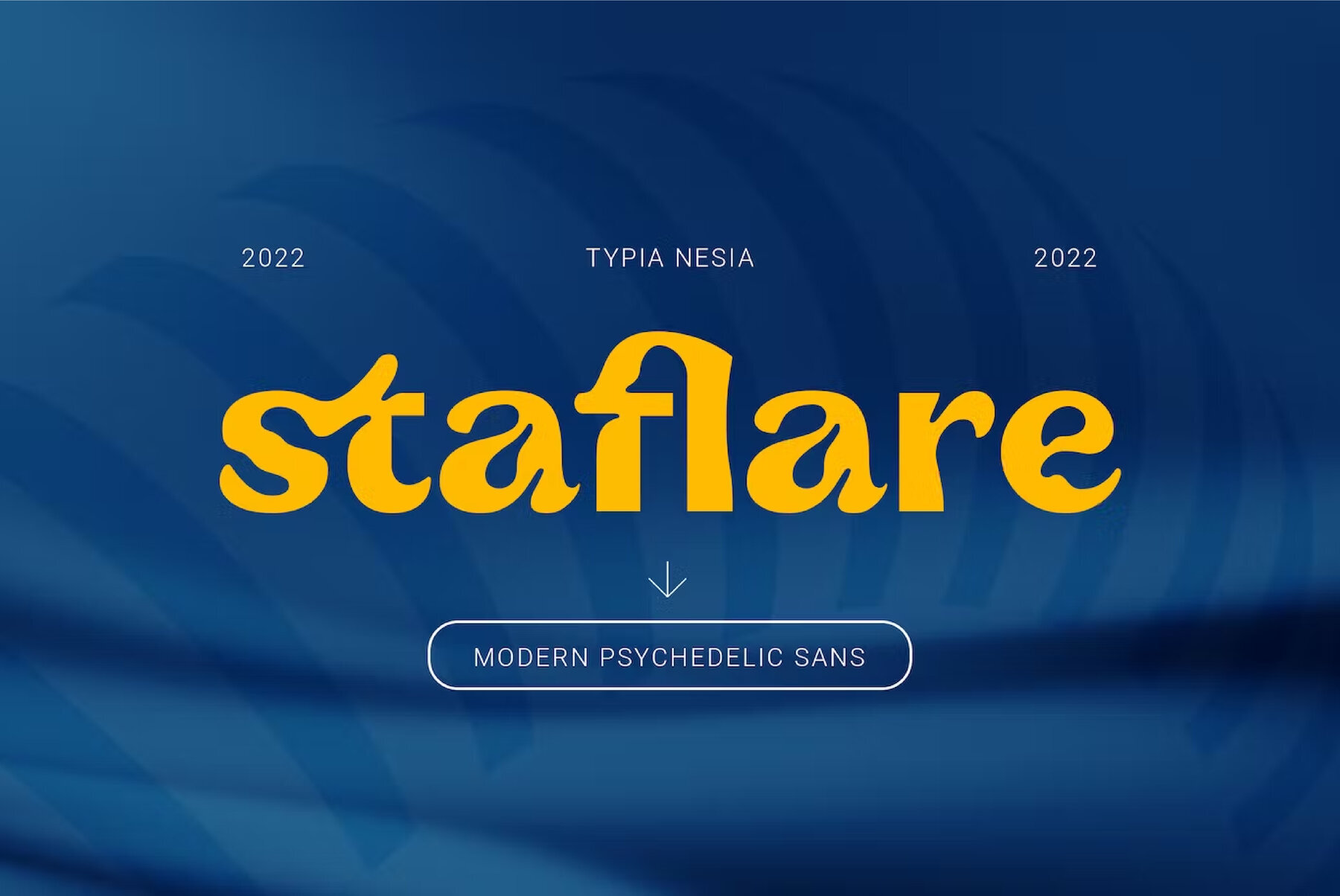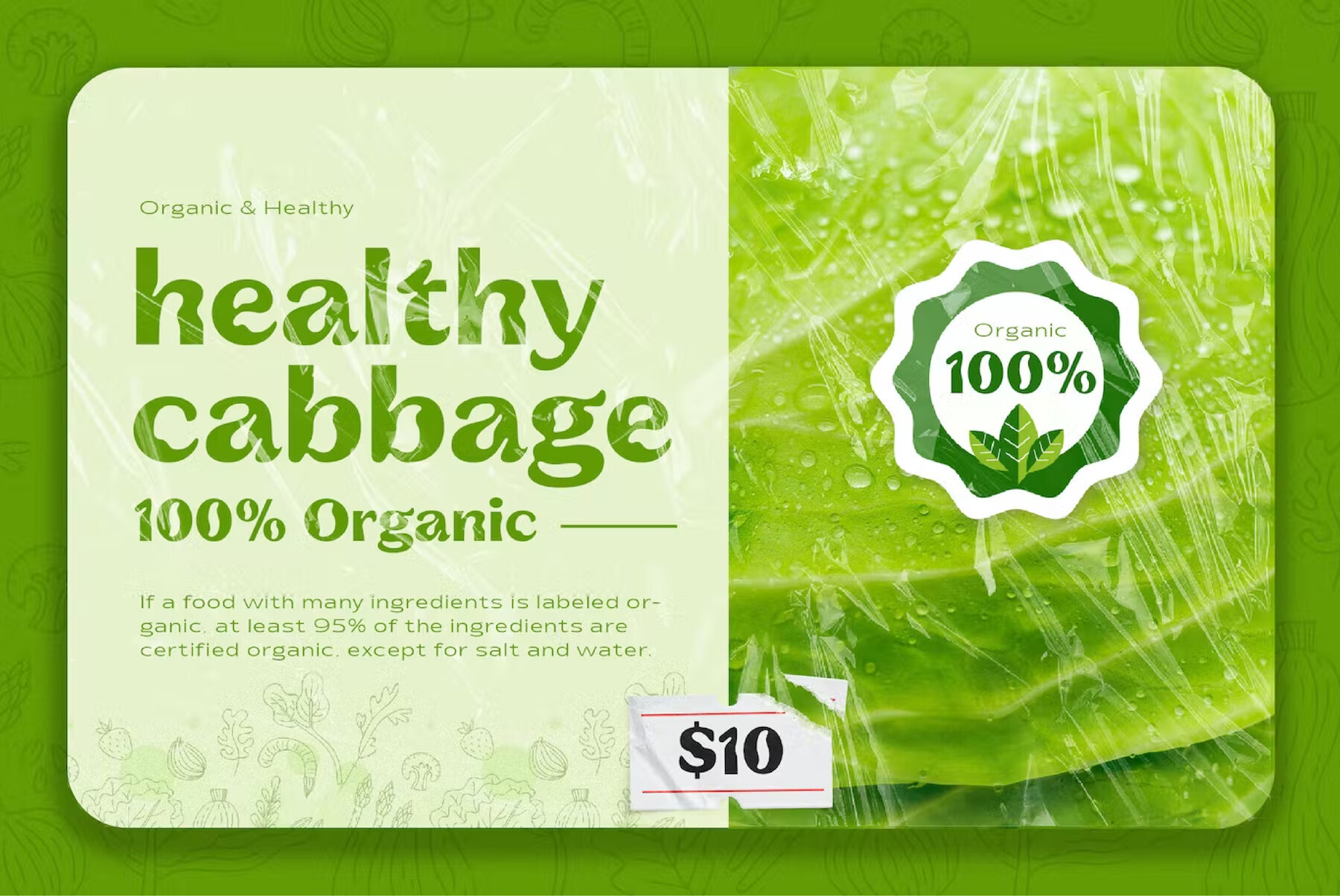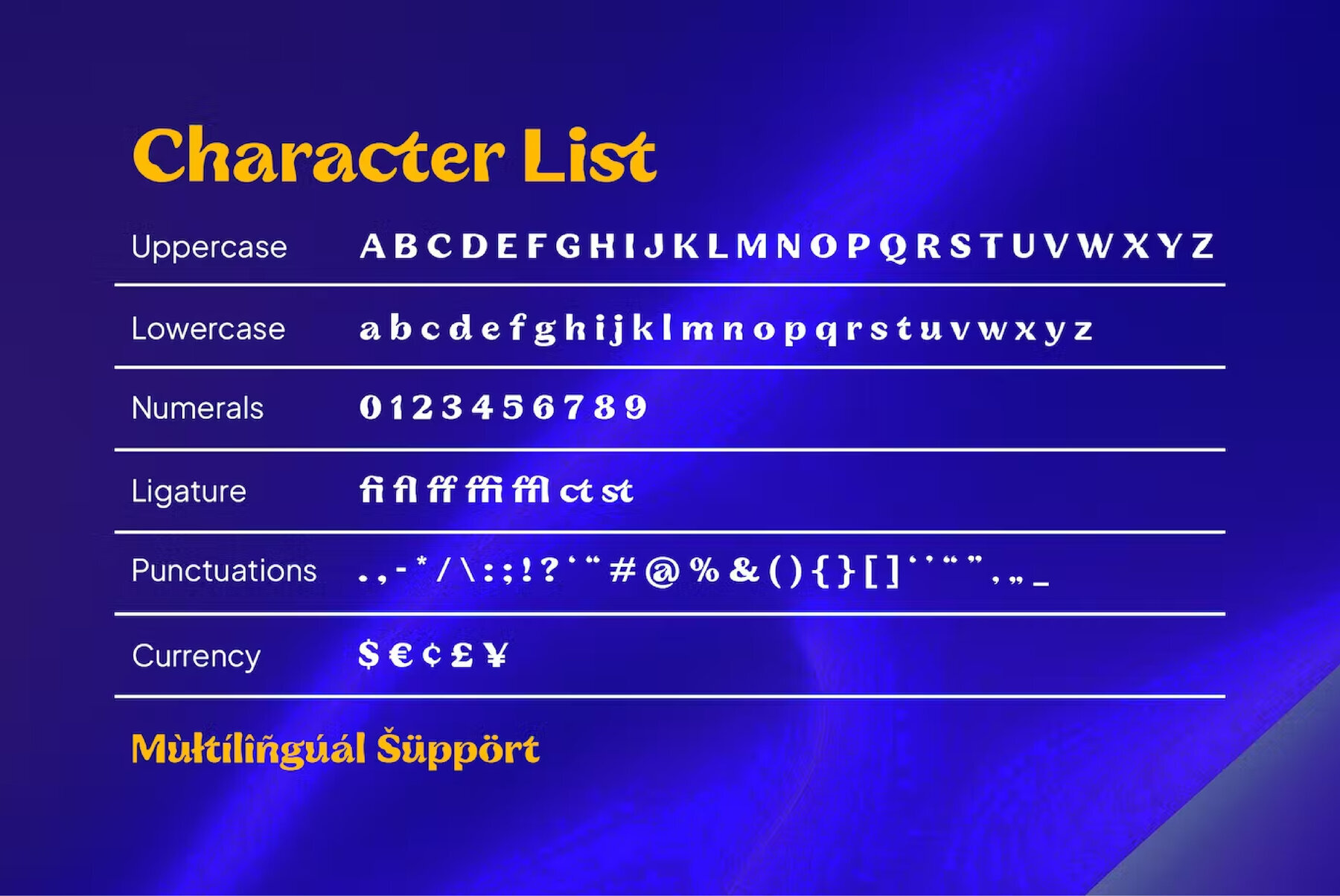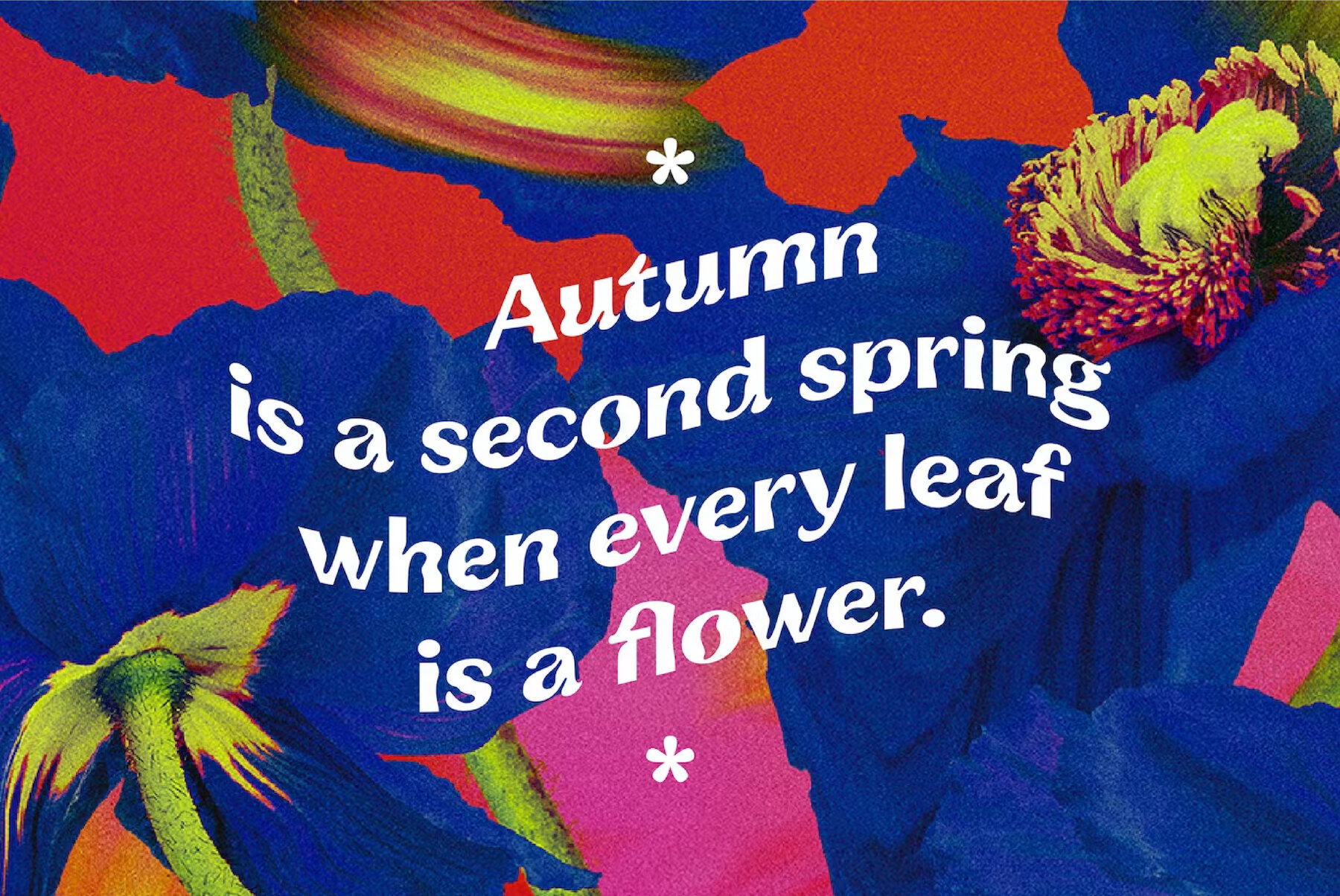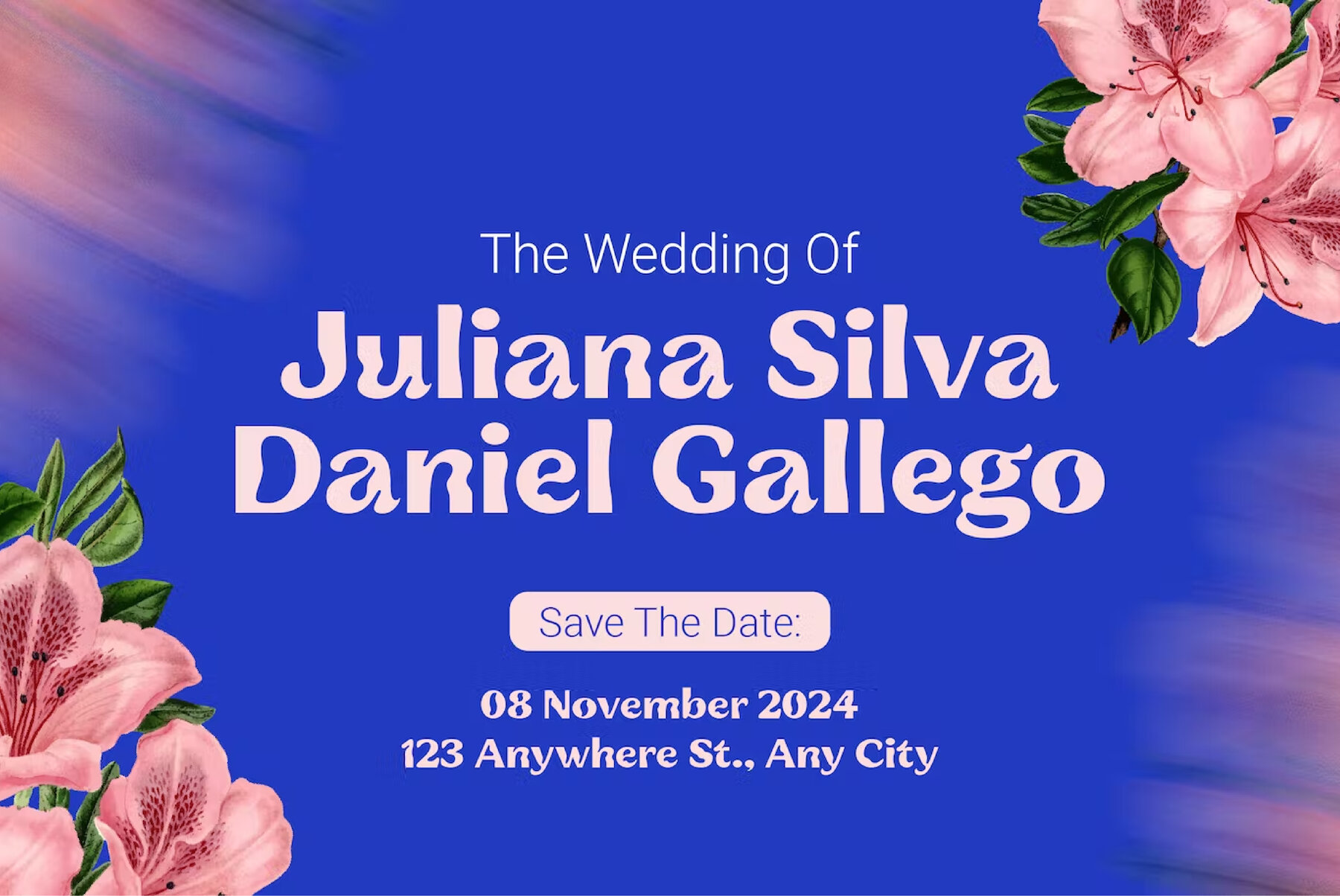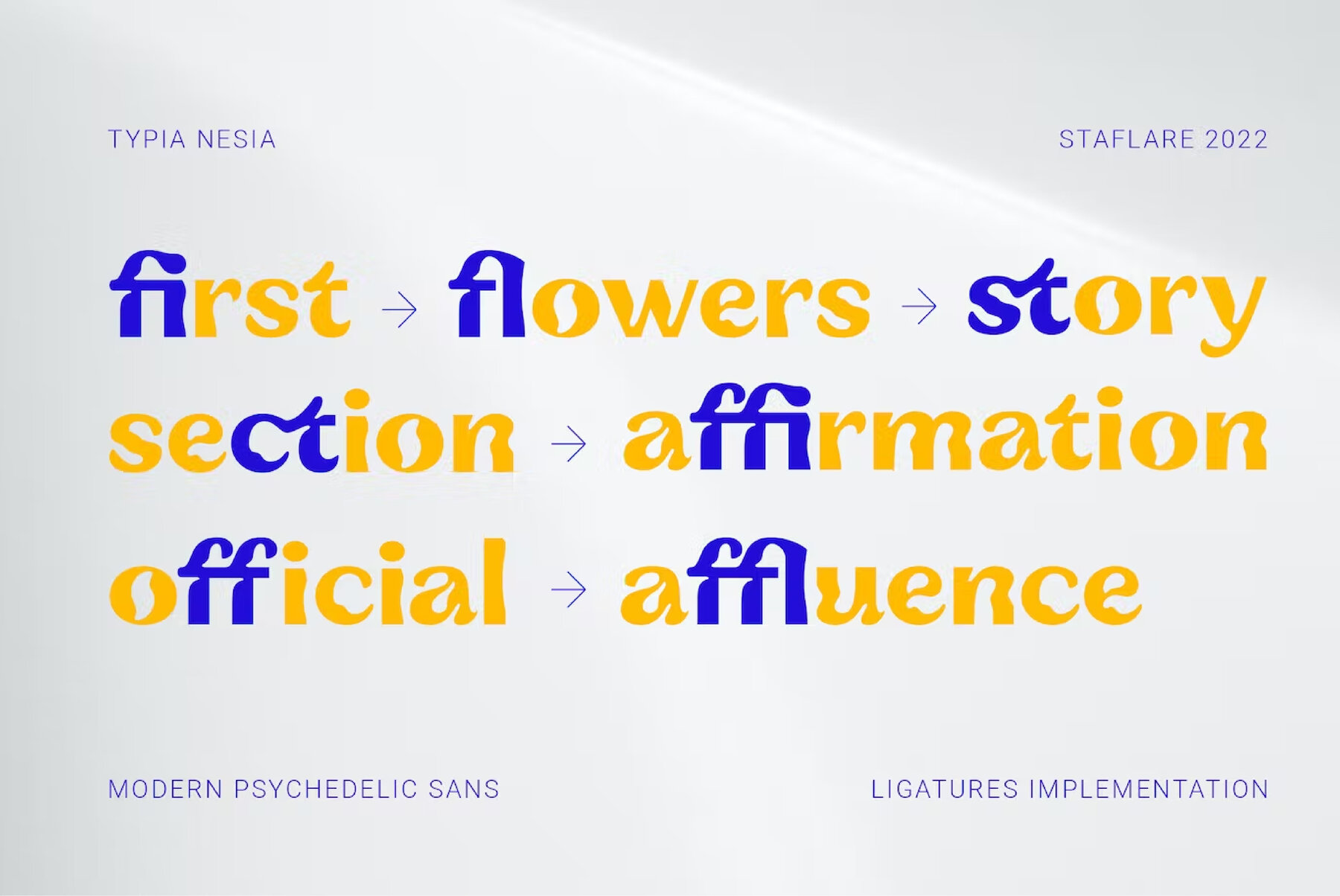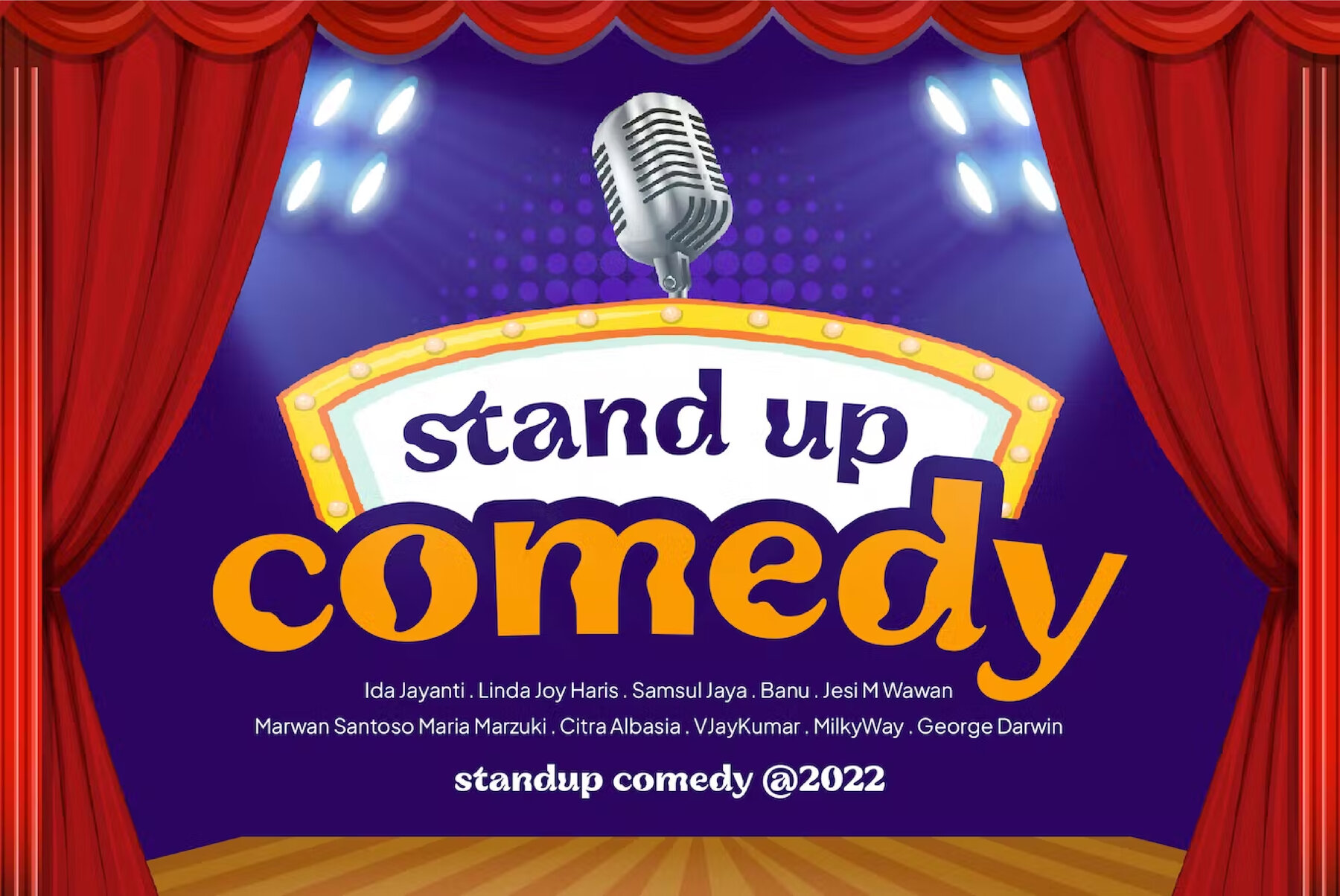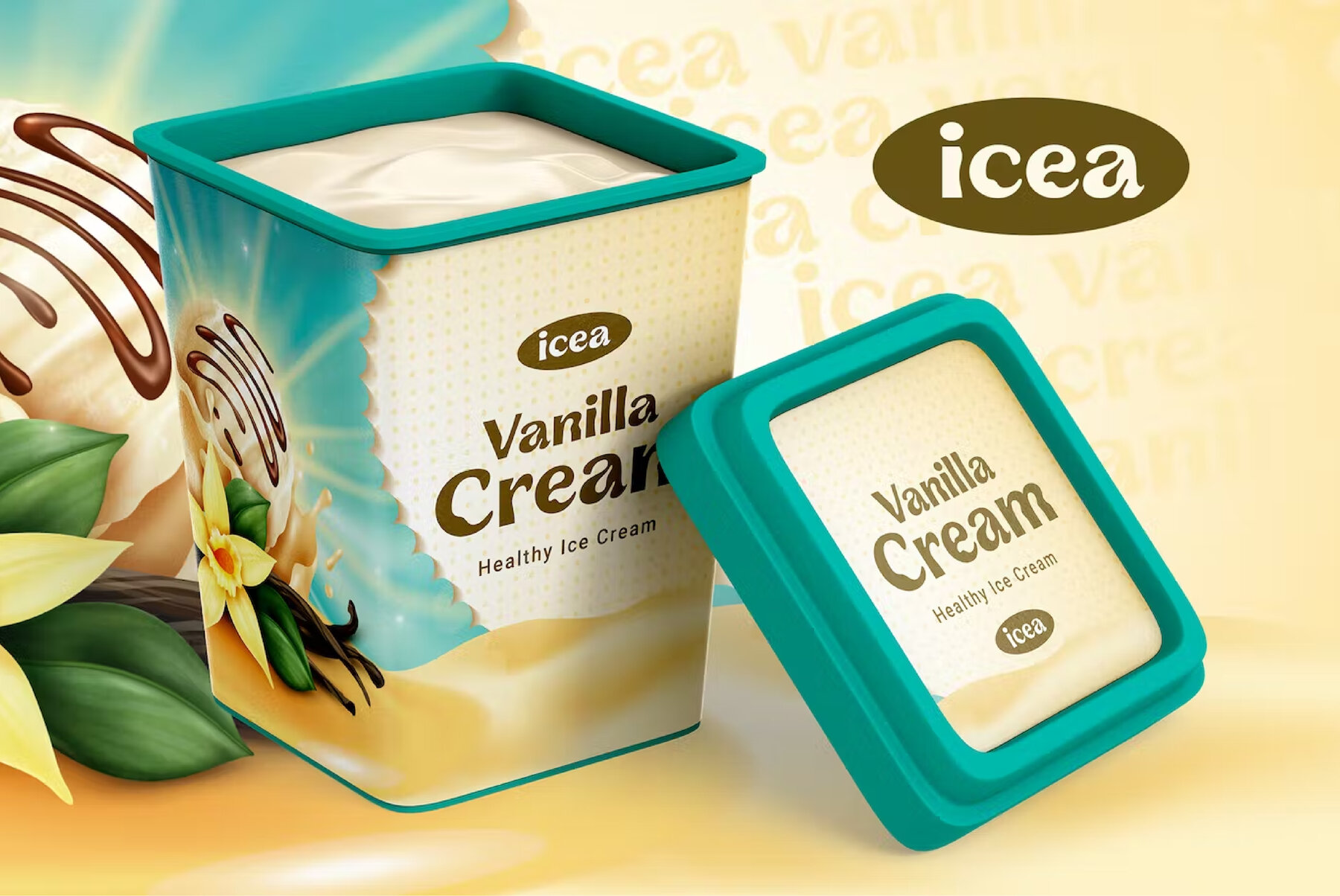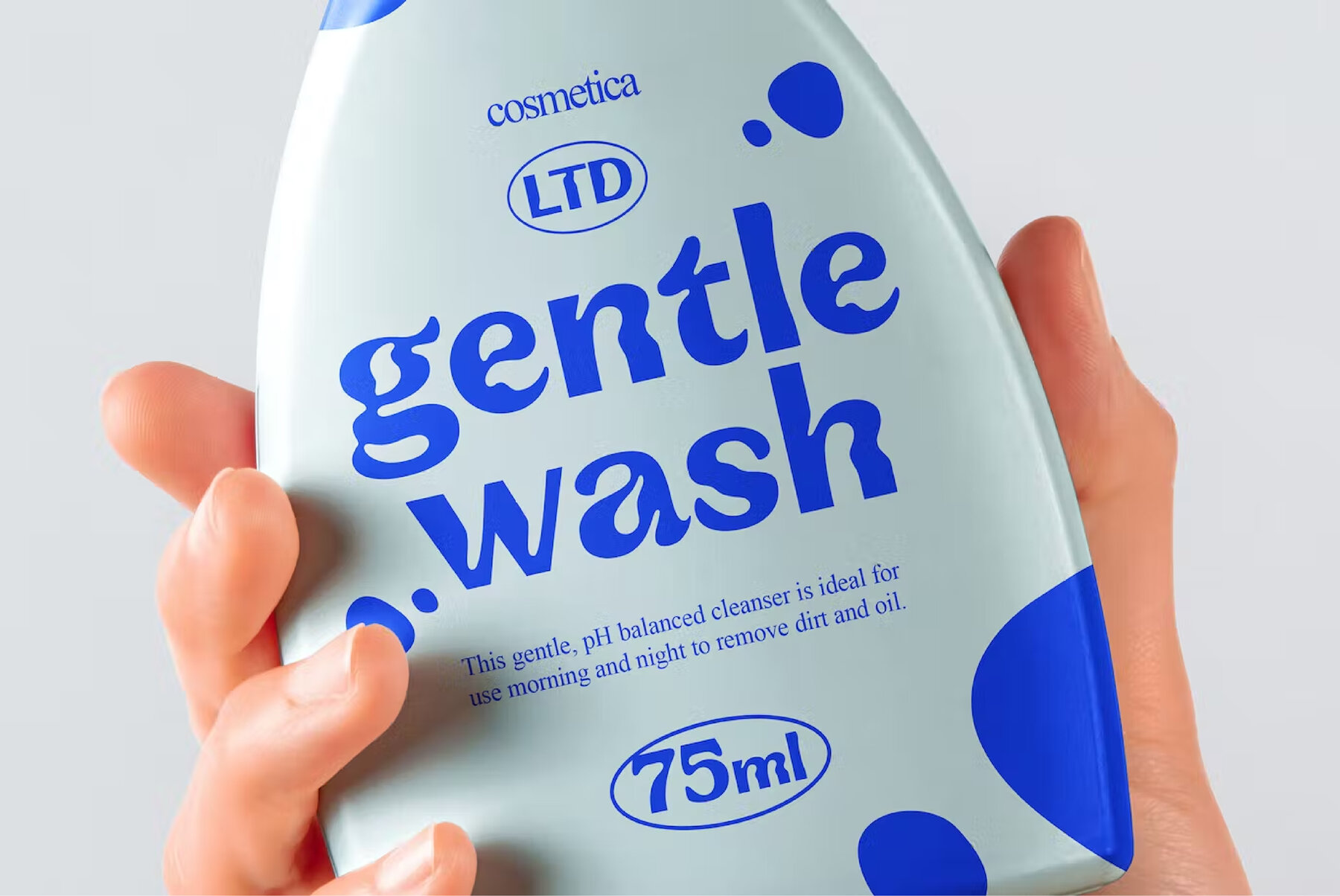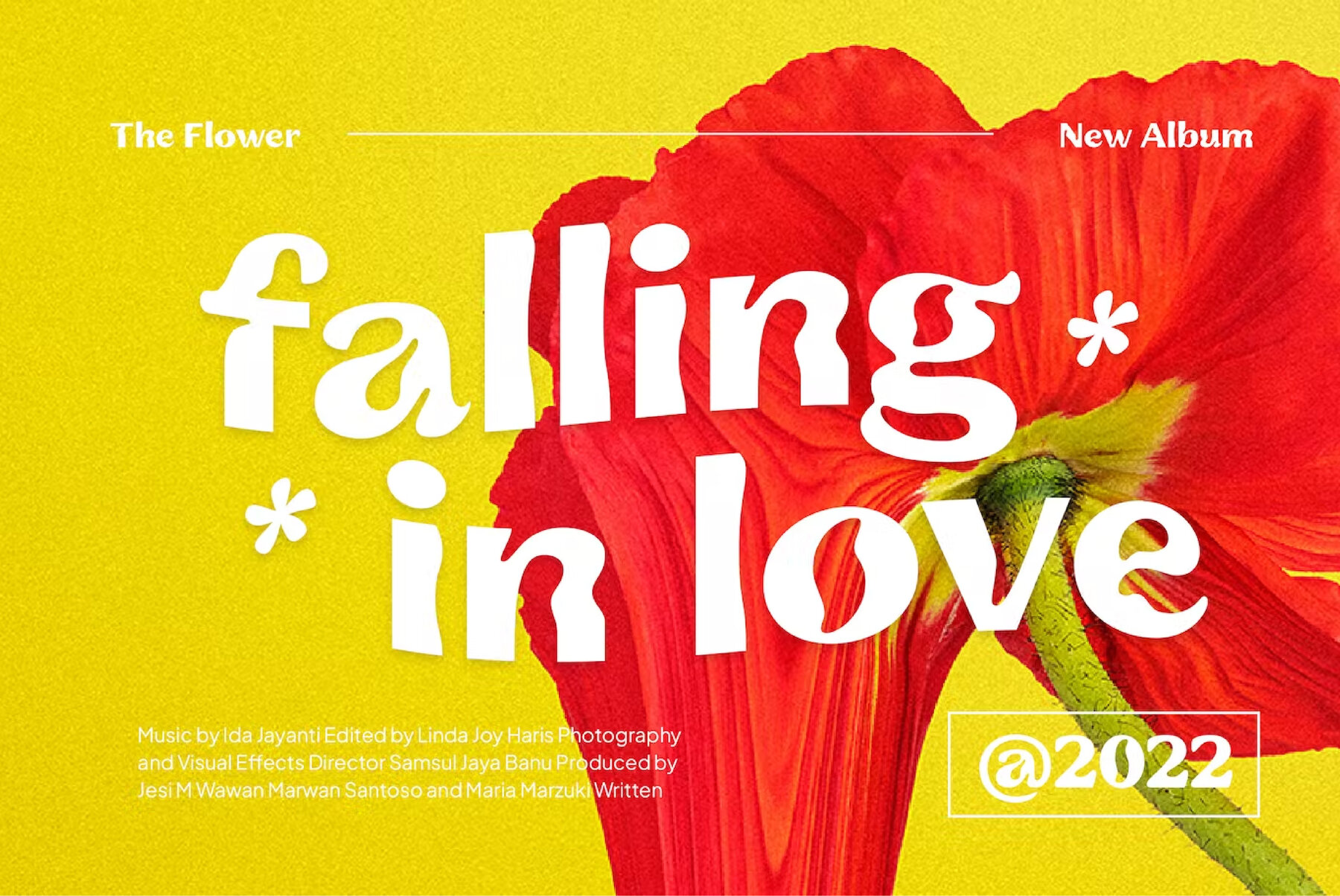
Staflare Font
Staflare Regular
Step into the psychedelic retro world with Staflare! This bold, black display sans is perfect for adding an edge to all your designs. With a unique brutalist and pop art style, Staflare is perfect for logos, modern advertising, vintage retro designs, mountain hiking brands, music posters, animation or movies, book/novel covers and much more. Bring your creative projects to life with Staflare today!